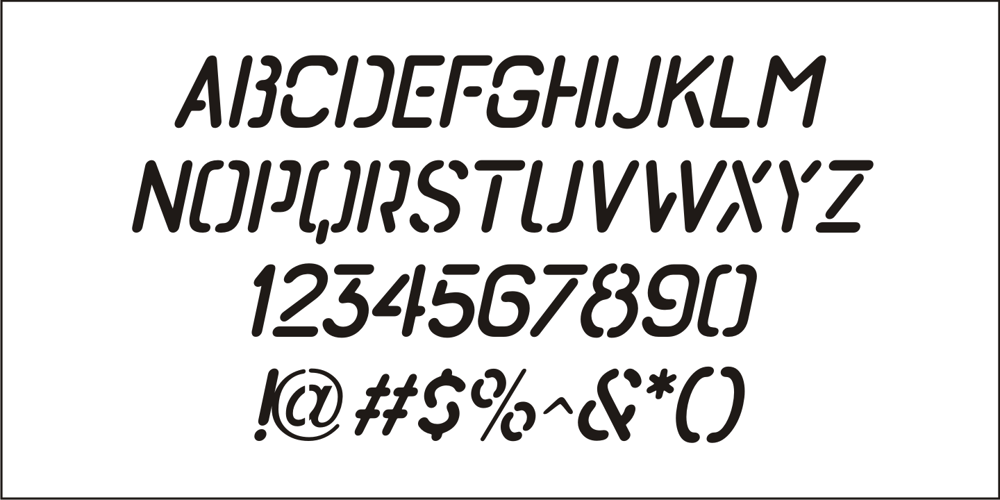
Import Stencil JNL
Import Stencil JNL font
Import Stencil JNL Font Family was designed by Jeff Levine and published by Jeff Levine. Import Stencil JNL contains 2 styles and family package options. Dollar Tree Stores imports a number of items from China, and many times these are limited-run products only available until the existing supplies run out. One such item was a sans serif stencil lettering guide with rounded ends that takes on the look of 1980s-influenced techno lettering. This is now available as Import Stencil JNL, in both regular and oblique versions.